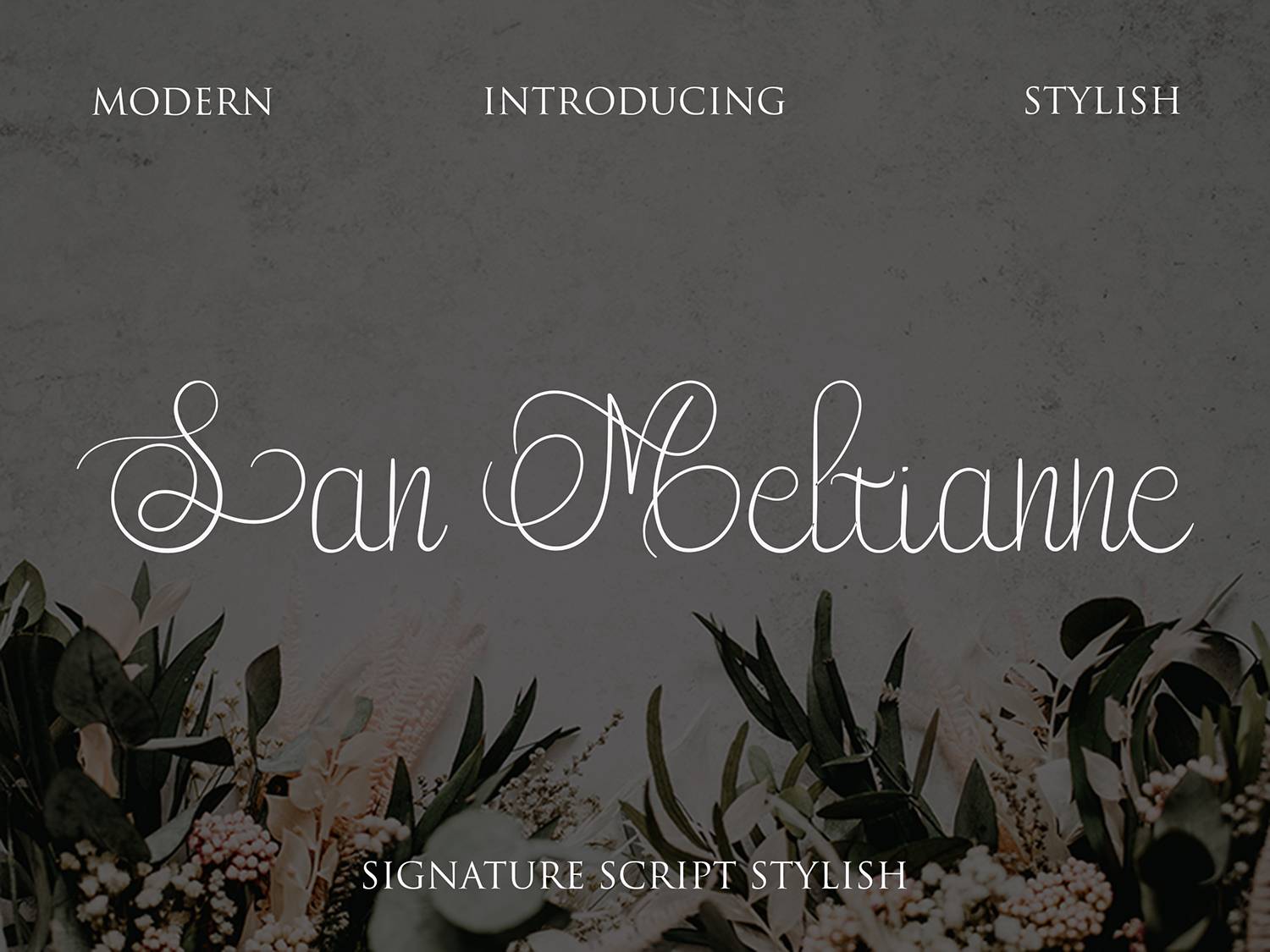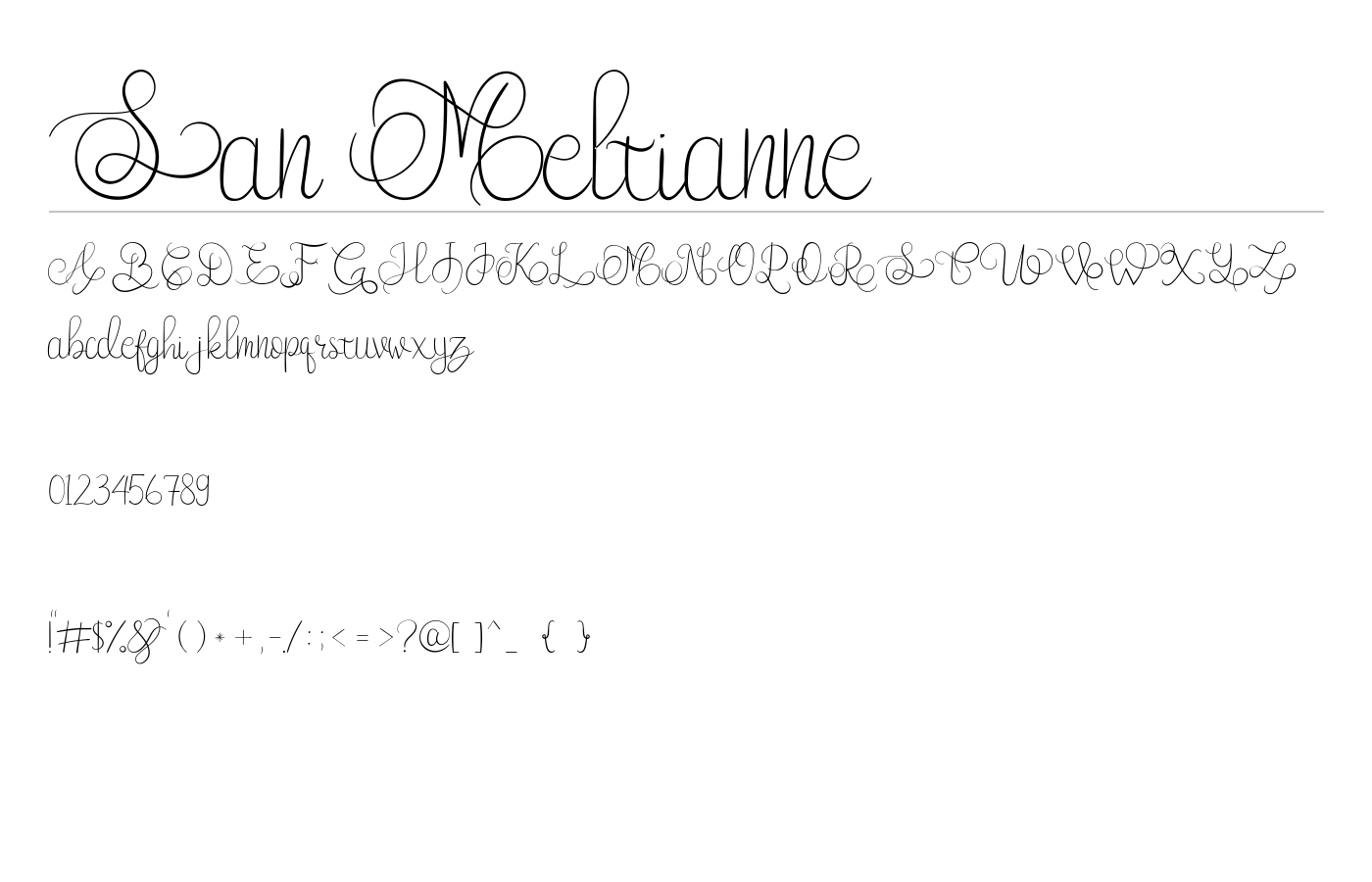
San Meltianne is an elegant, delicate script font characterized by its thin, flowing lines and intricate swirls, creating a graceful and sophisticated feel. Its fine strokes and artistic curls make it ideal for luxury branding, wedding invitations, and decorative headlines where a refined, ornamental touch is desired. This font works best in large sizes due to its light weight and detailed design, adding a touch of classic charm and femininity to any project.
San Meltianne Font
About San Meltianne Font
| Font family | San Meltianne Font |
| Release date | 2021-08-18 |
| Designer | Fontmine Studio |